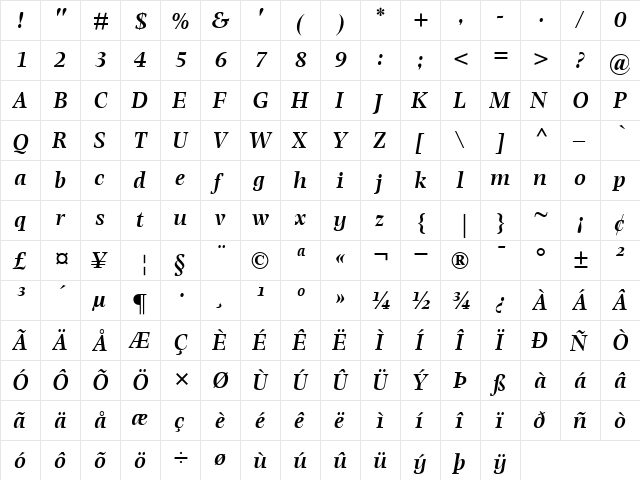
PhotinaMT-SemiBold Semi BoldItalic Font Preview
PhotinaMT-SemiBold Semi BoldItalic
Design Context for PhotinaMT-SemiBold Typeface
PhotinaMT-SemiBold offers clean, dependable letterforms without strong stylistic allegiance, making it a practical choice for designers who need flexibility. Its italic angle brings a sense of urgency and motion to the letterforms. Its bold stroke weight gives it real presence on the page.
Pro Tip: Use PhotinaMT-SemiBold for emphasis, pull quotes, and subheadings where its slanted energy can add rhythm to the layout.